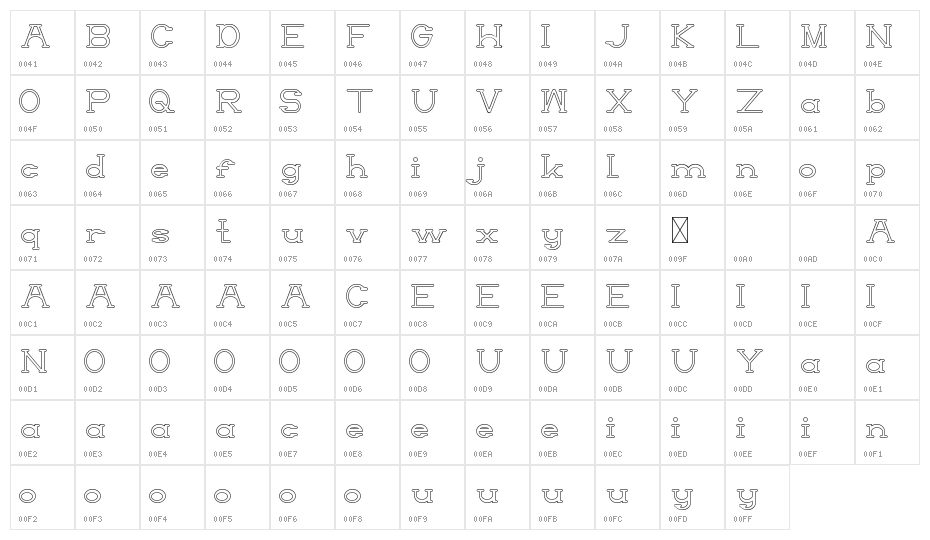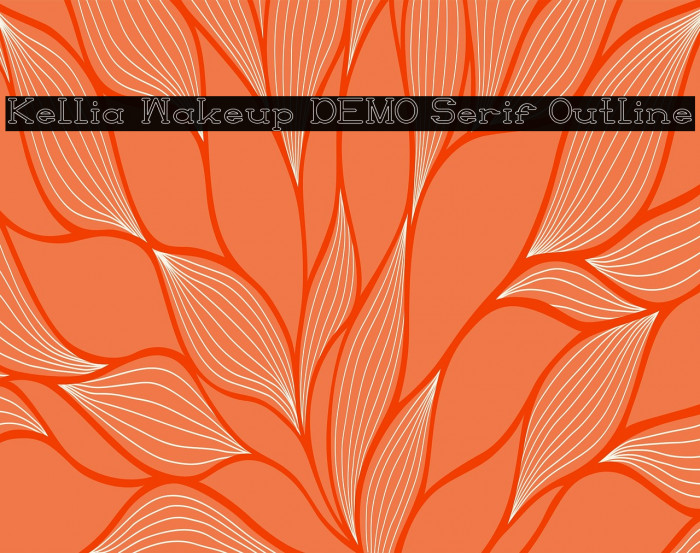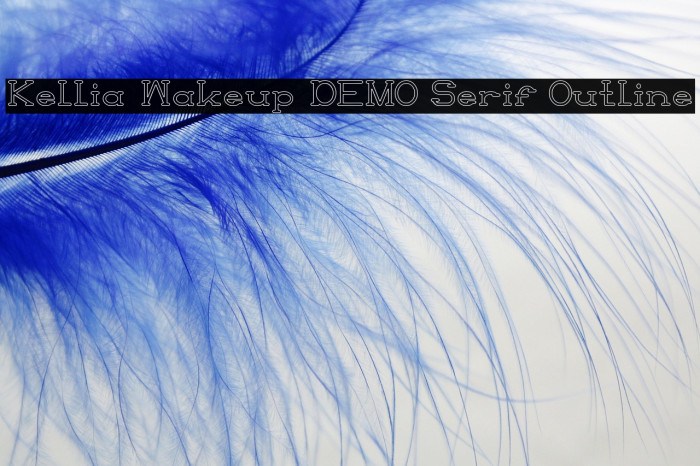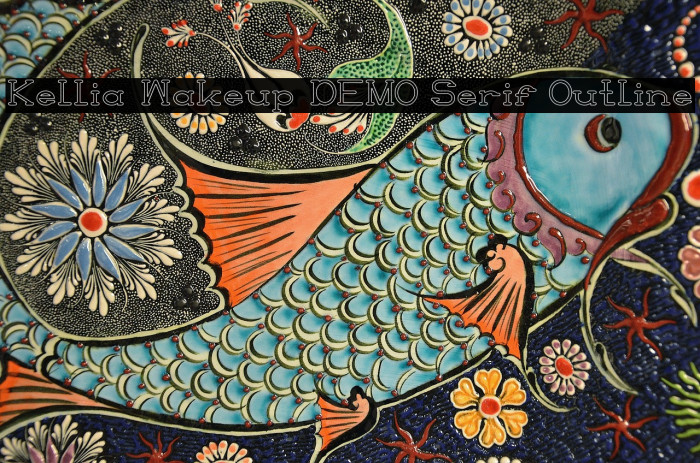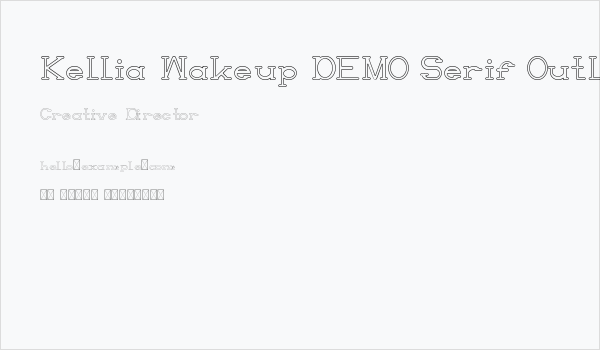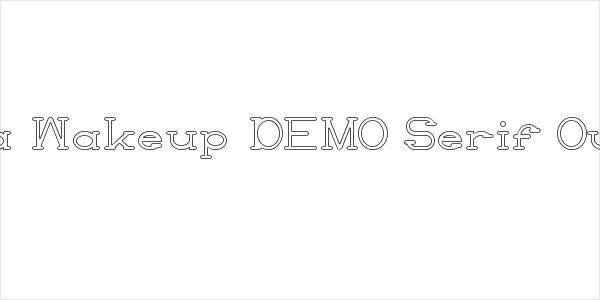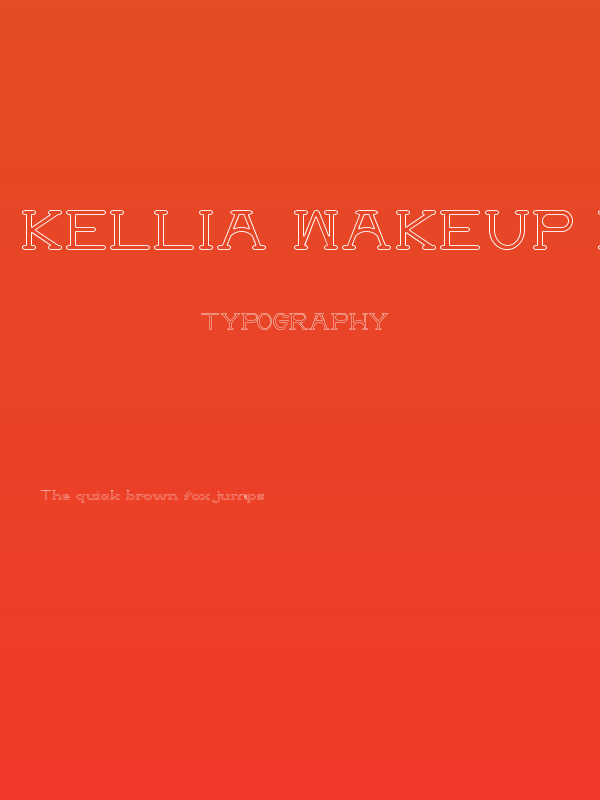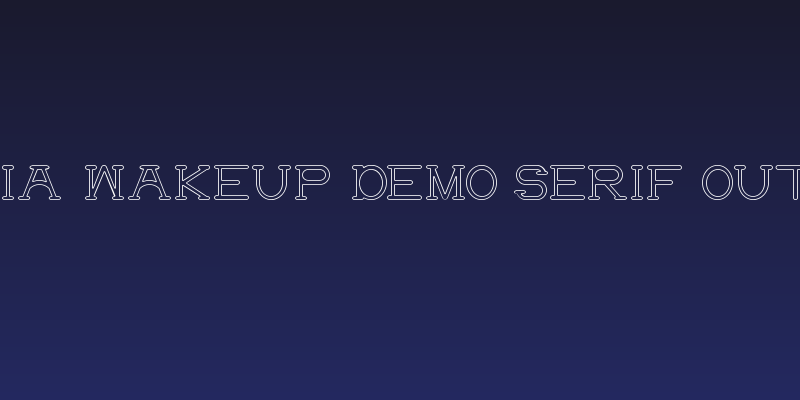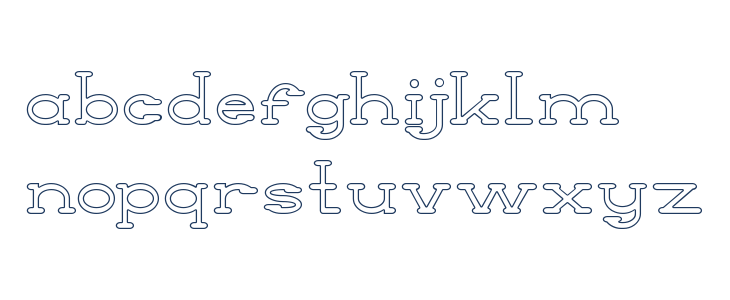
Kellia Wakeup DEMO Serif Outline Font
Kellia Wakeup DEMO Serif Outline Description
This font features a unique outline style with a serif design, giving it a distinctive and artistic appearance. The characters are crafted with a hollow center, creating an airy and open feel. The serifs are pronounced yet elegant, adding a touch of sophistication. The uppercase and lowercase letters maintain a consistent style, with smooth curves and sharp angles that enhance readability. The font's outline nature makes it ideal for creative projects where a bold yet refined look is desired. Its design is both modern and classic, suitable for various applications.
| Proposed Projects | Ideal for branding, posters, headlines, and creative design projects. |